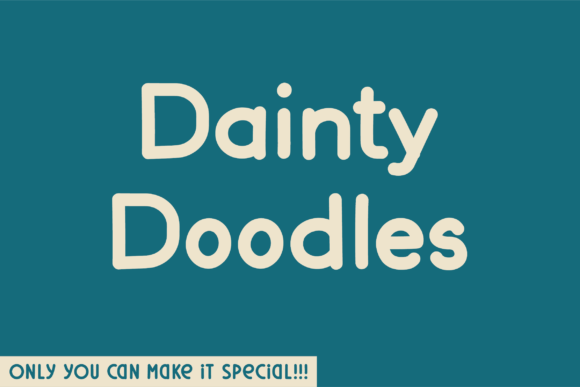
Unleash your creativity with Dainty Doodles, the captivating sans serif font that effortlessly adds charm and sophistication to your designs. Inspired by nature's delicate curves, this font exudes a timeless elegance that's sure to leave a lasting impression. Whether you're creating heartfelt quotes, personalized notes, trendy tees, or eye-catching product designs, Dainty Doodles is the perfect choice for adding a touch of class and originality.
Immerse yourself in the world of Dainty Doodles, where endless possibilities await. With its sweeping strokes and graceful flourishes, this font evokes a sense of nostalgia and romance. It's a font that whispers sweet nothings in your ear, inviting you to express your emotions in a way that's both personal and profound. From heartfelt letters to whimsical invitations, Dainty Doodles will elevate your words and make them dance off the page with elegance.
Imagine your designs adorned with Dainty Doodles' graceful curves and delicate details. Its timeless charm will transform ordinary words into works of art, capturing the attention of all who see it. Whether you're a seasoned designer or just starting, Dainty Doodles is incredibly easy to use, making it the perfect choice for any project. Its versatility knows no bounds, allowing you to create designs that are as unique and expressive as you are.
Embrace the beauty of Dainty Doodles and embark on a creative journey like no other. Let your imagination soar as you explore the endless possibilities this font has to offer. From heartwarming quotes and personalized notes to trendy tees and captivating product designs, Dainty Doodles will help you create designs that resonate with your audience and leave them craving more.
With Dainty Doodles at your fingertips, the world of design becomes your oyster. Unleash your creativity, let your imagination wander, and craft designs that leave an unforgettable impression. Join the countless artists and designers who have fallen in love with Dainty Doodles and experience the magic for yourself.